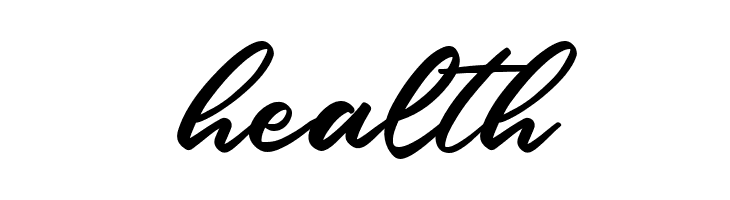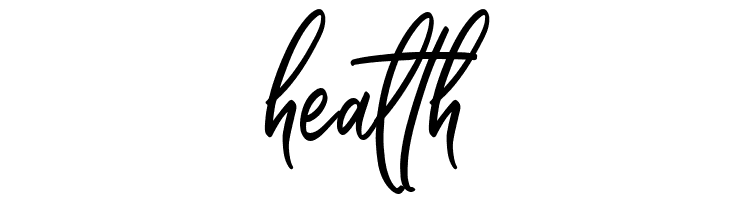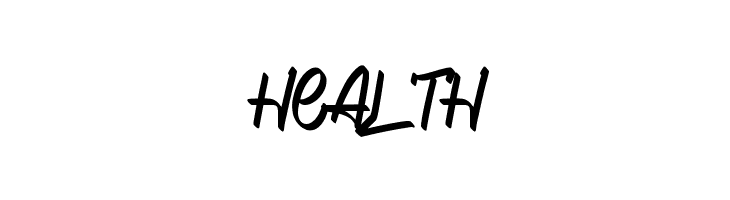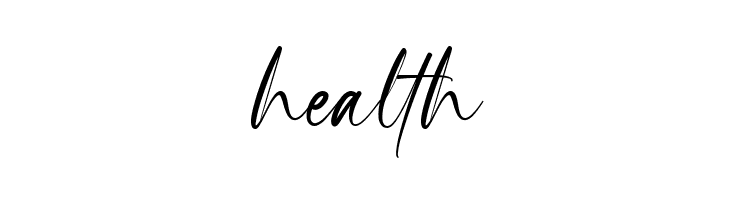
• High Sky
A modern, cursive font with bold strokes and elegant connections.
• High Thin LIGHT
A modern, thin-line font with a minimalist and elegant style.
• Higher Style
A dynamic handwritten font with fluid, elongated strokes and a personal touch.
• Highes Signature
A sophisticated, elegant handwritten font with fluid strokes and a natural flow.
• HighLines
A bold, hand-drawn font with textured, sketch-like hatching.
• Historis
An elegant and flowing script font with ornate letterforms and graceful curves.
• HOCUS FOCUS Bold
• HoganMania
A bold, jagged font with dynamic strokes and a graffiti-like style.
• Hokia
A bold, graffiti-inspired font with dynamic and angular letterforms.